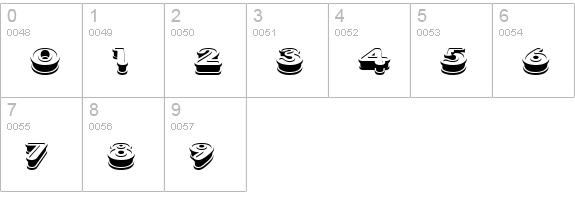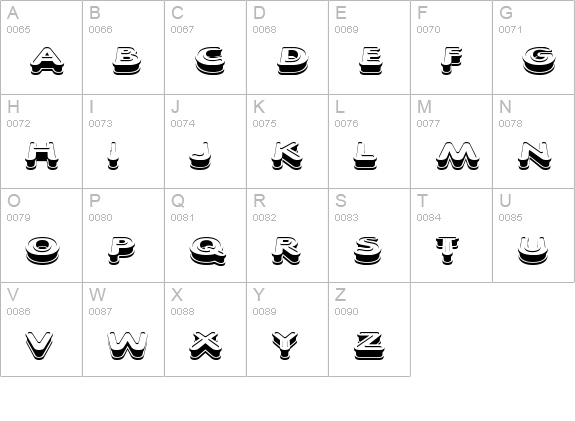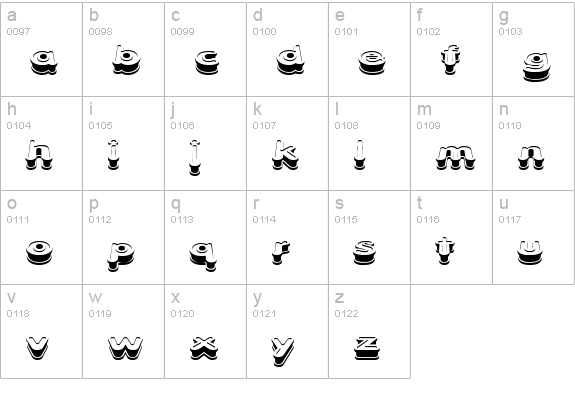
Xtrusion (BRK) Font Details
Xtrusion (BRK) is a bold and eye-catching display font that features a unique 3D extruded effect, adding depth and dimension to any text. This font is perfect for making a statement and grabbing attention in various design projects, such as posters, logos, and headlines. The sharp edges and modern look of Xtrusion (BRK) make it a versatile choice for both digital and print designs. The best part about Xtrusion (BRK) font is that it is completely free to download at FontsMarket.com. This means you can easily access and use this striking font in your projects without any cost. Whether you are a designer looking to add a dynamic touch to your creations or a business owner aiming to enhance your branding, Xtrusion (BRK) font is a valuable asset that won't break the bank. Don't miss out on the opportunity to elevate your designs with the visually impactful Xtrusion (BRK) font. Download it for free today at FontsMarket.com and start creating stunning visuals that stand out from the crowd.